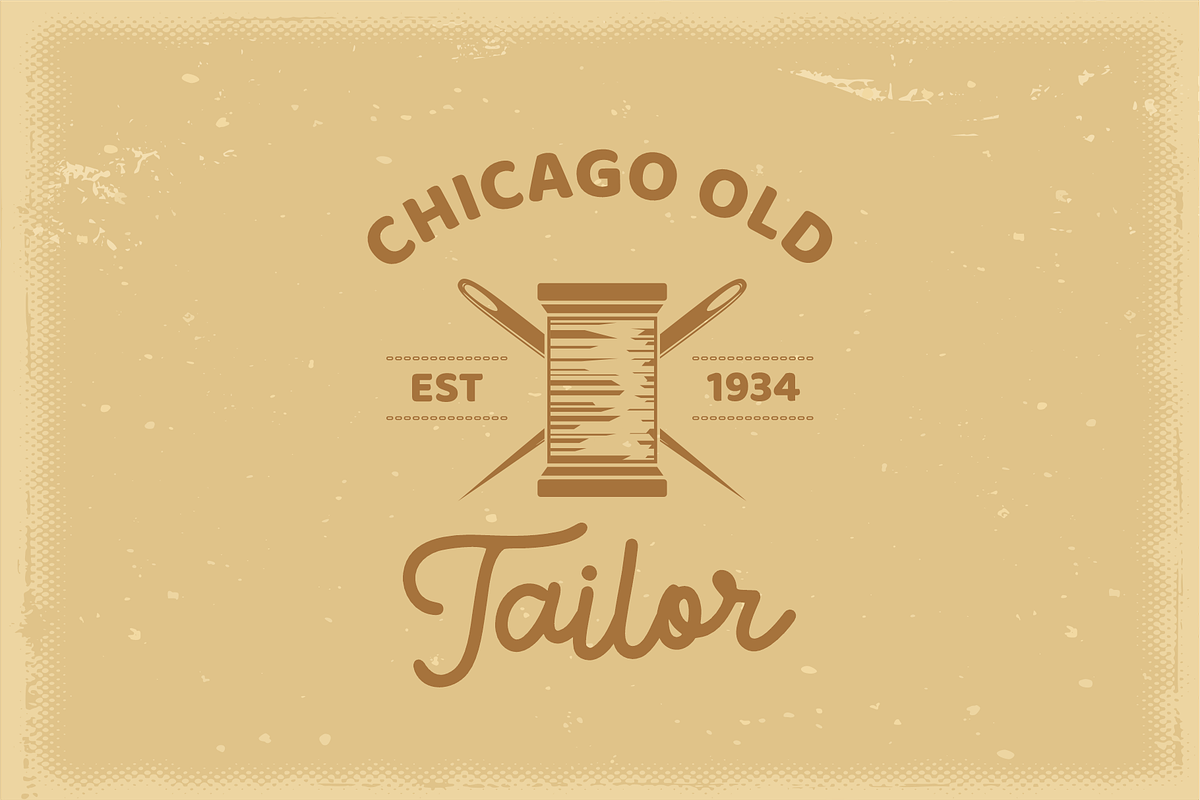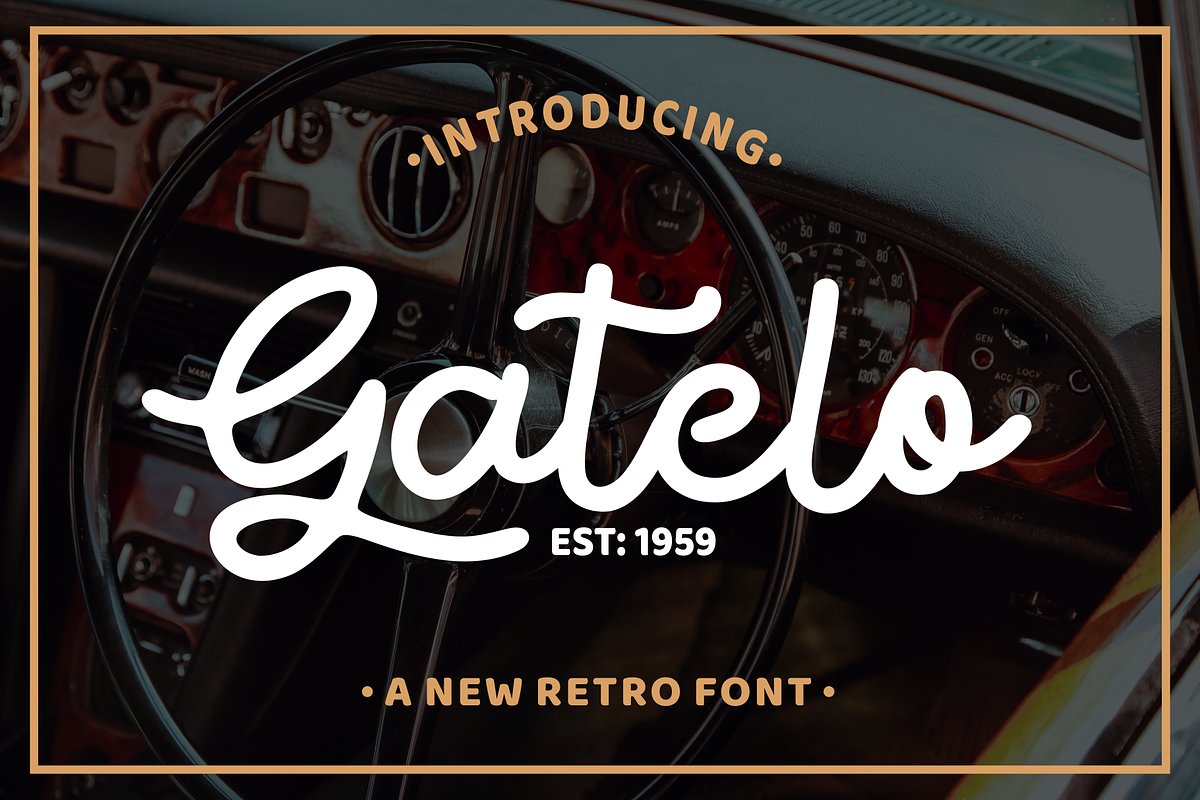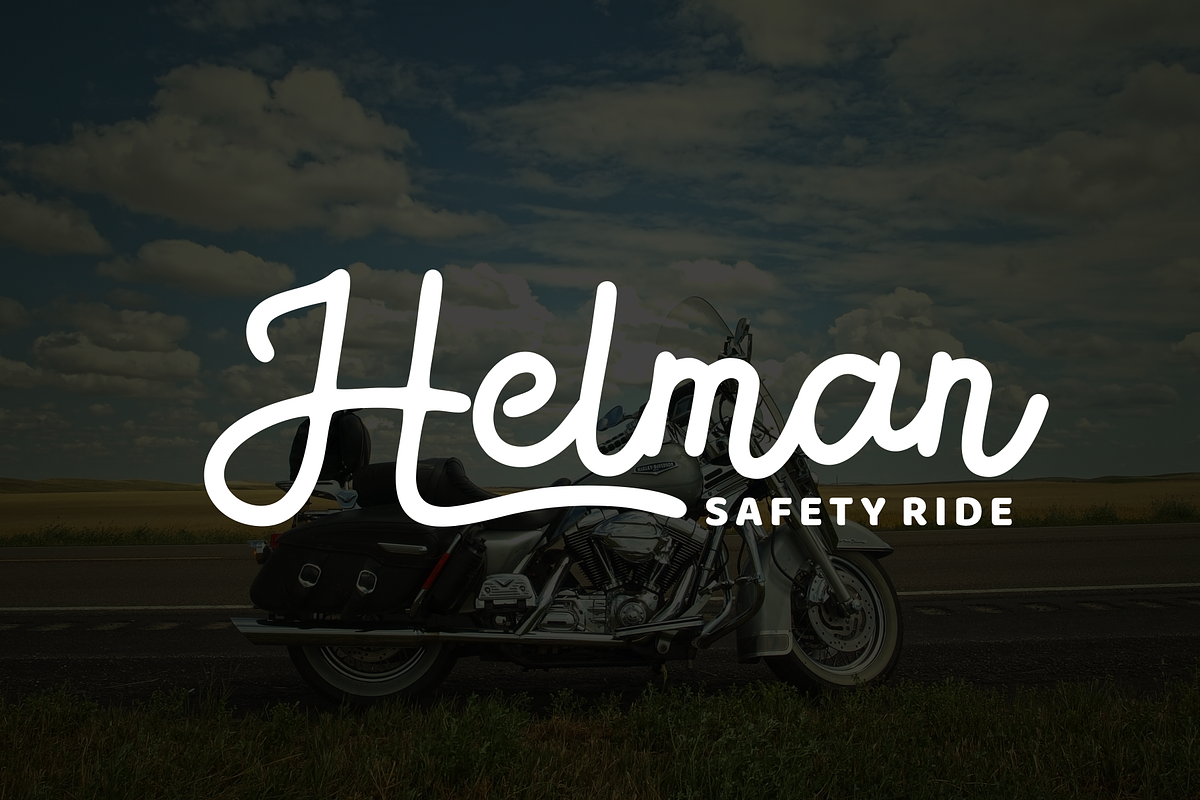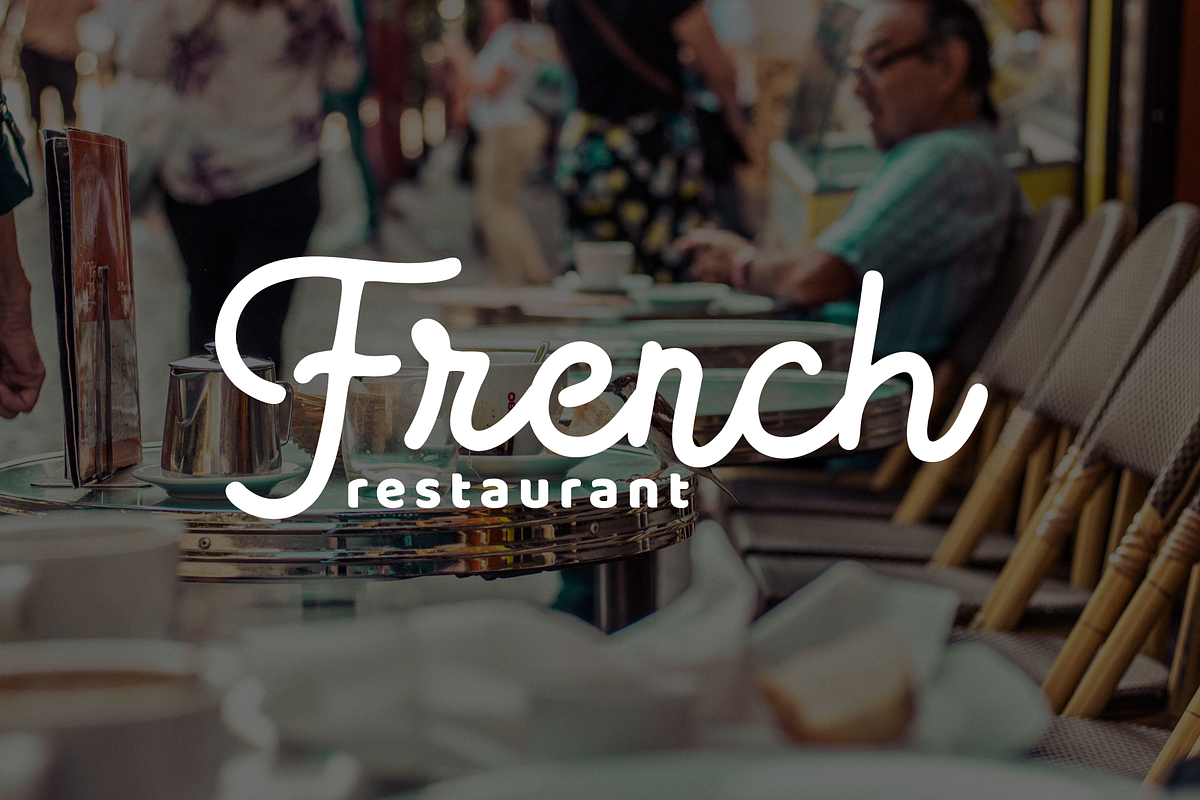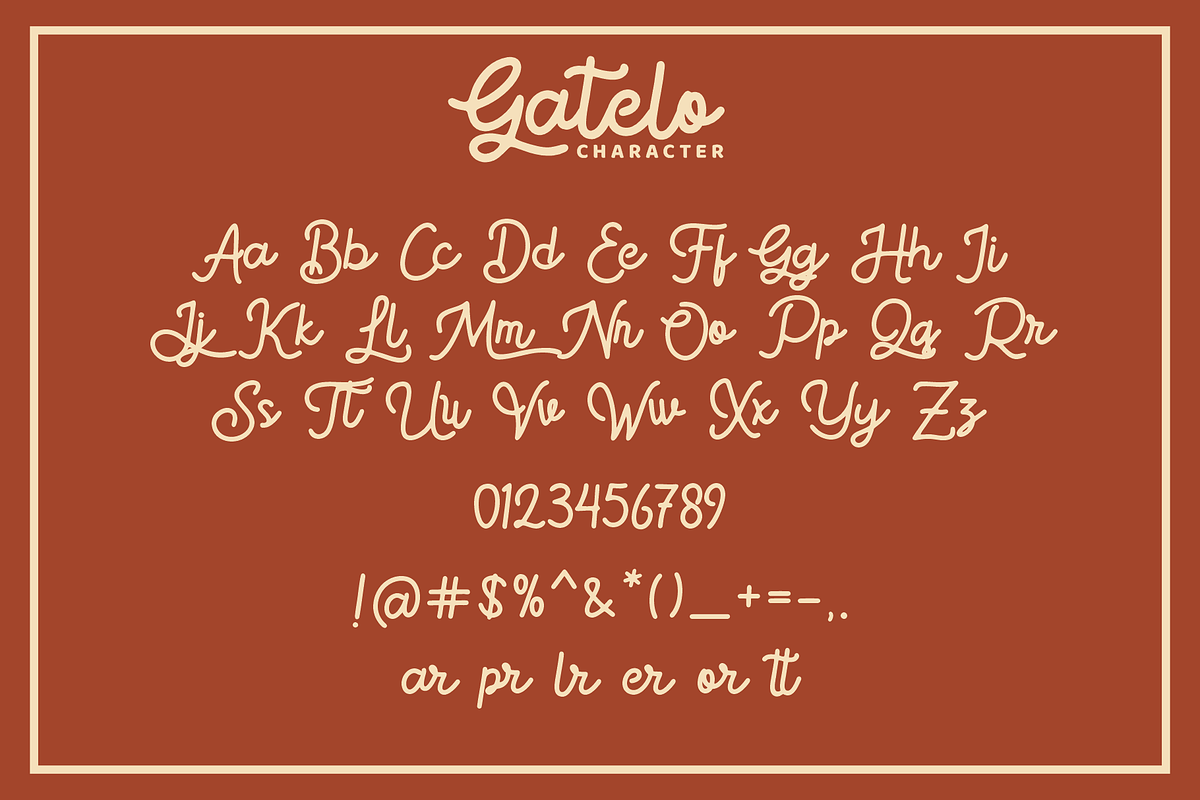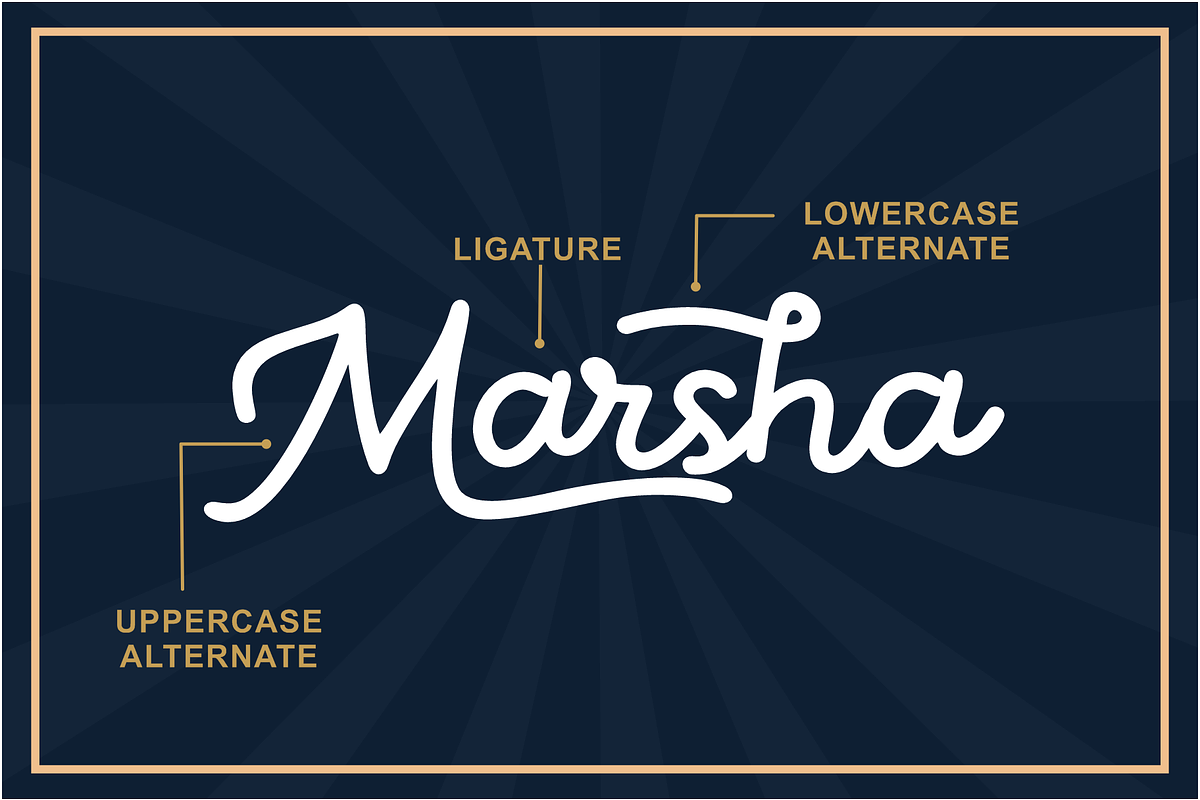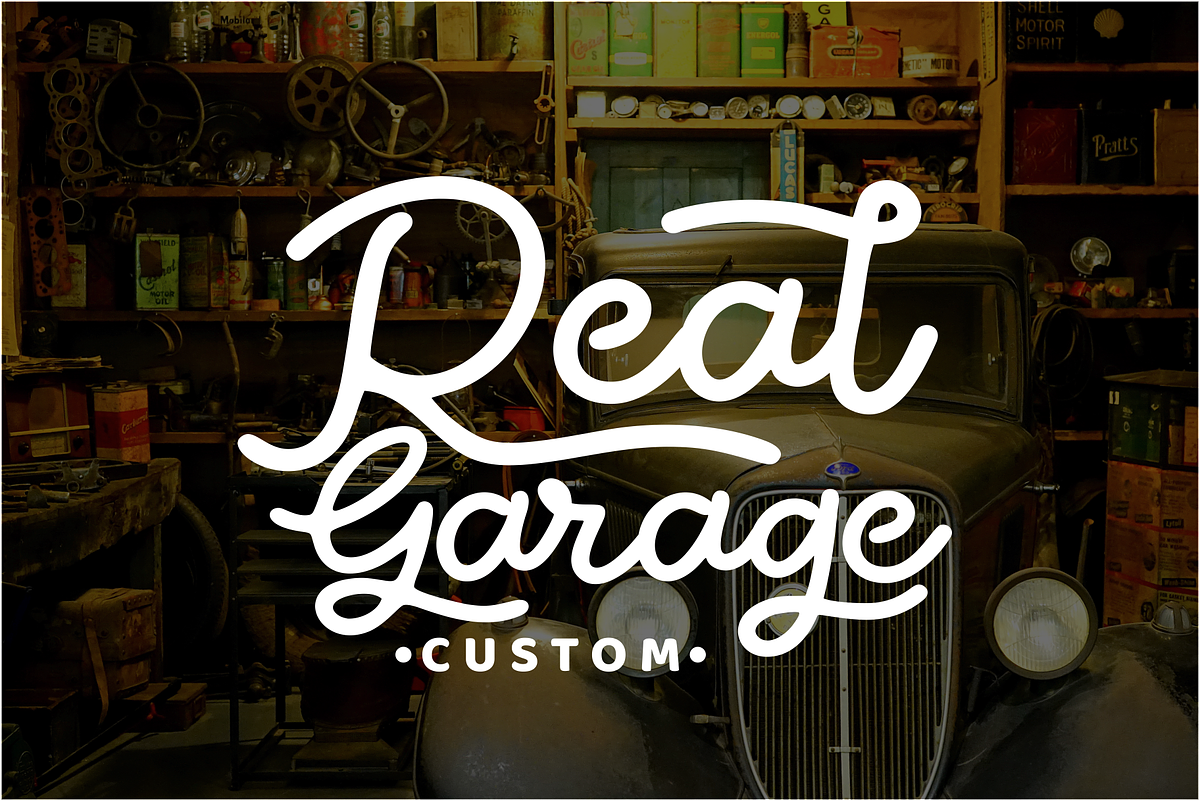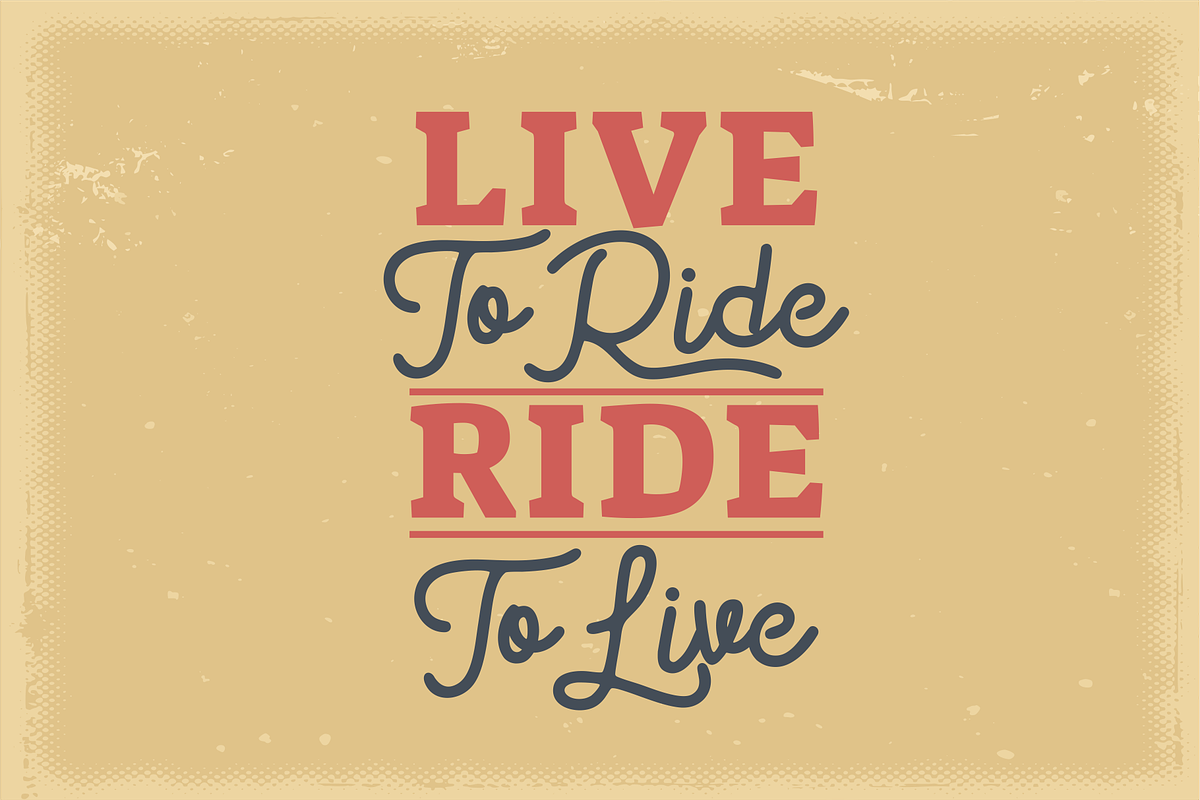
Gatelo - classic font
Gatelo Inspired by Retro style and combination with Hand Lettering style. Every single letters have been carefully crafted to make your text looks beautiful. I hope this can make inspire you from your work. Font is PUA encoded so you can access extras from character map in most design software.
Alternate Stylistic Character
Multilanguage Support